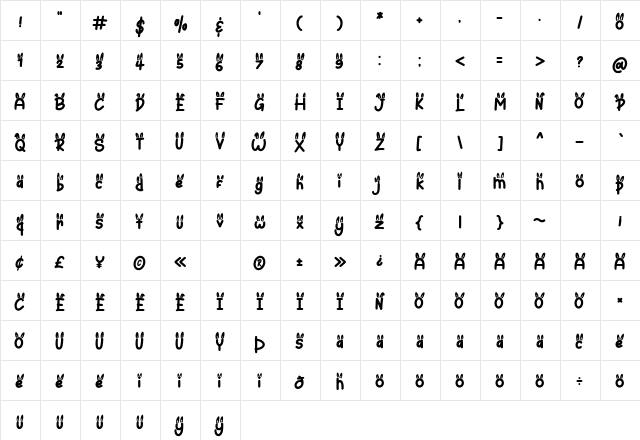
Bunny Hopper Ear Regular
Design Context for Bunny Hopper Ear Typeface
Bunny Hopper Ear is a composed and adaptable typeface that performs quietly and consistently across a wide range of design contexts.